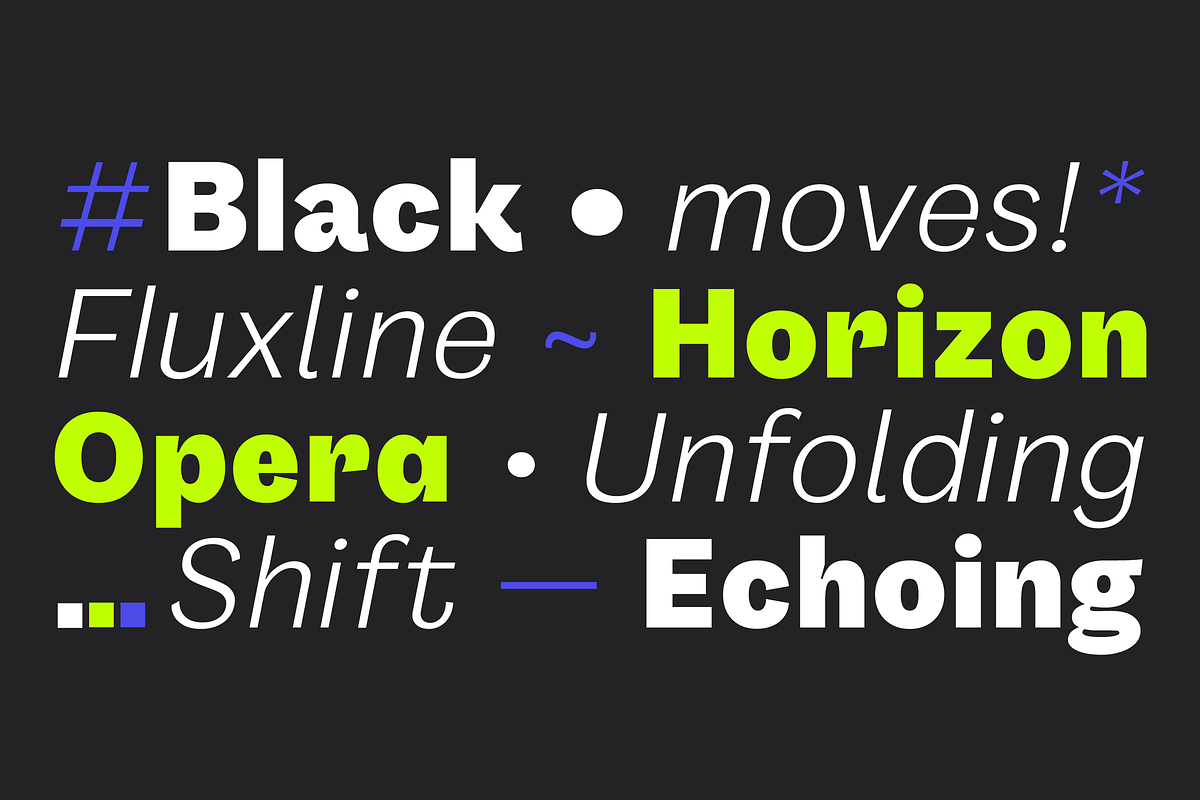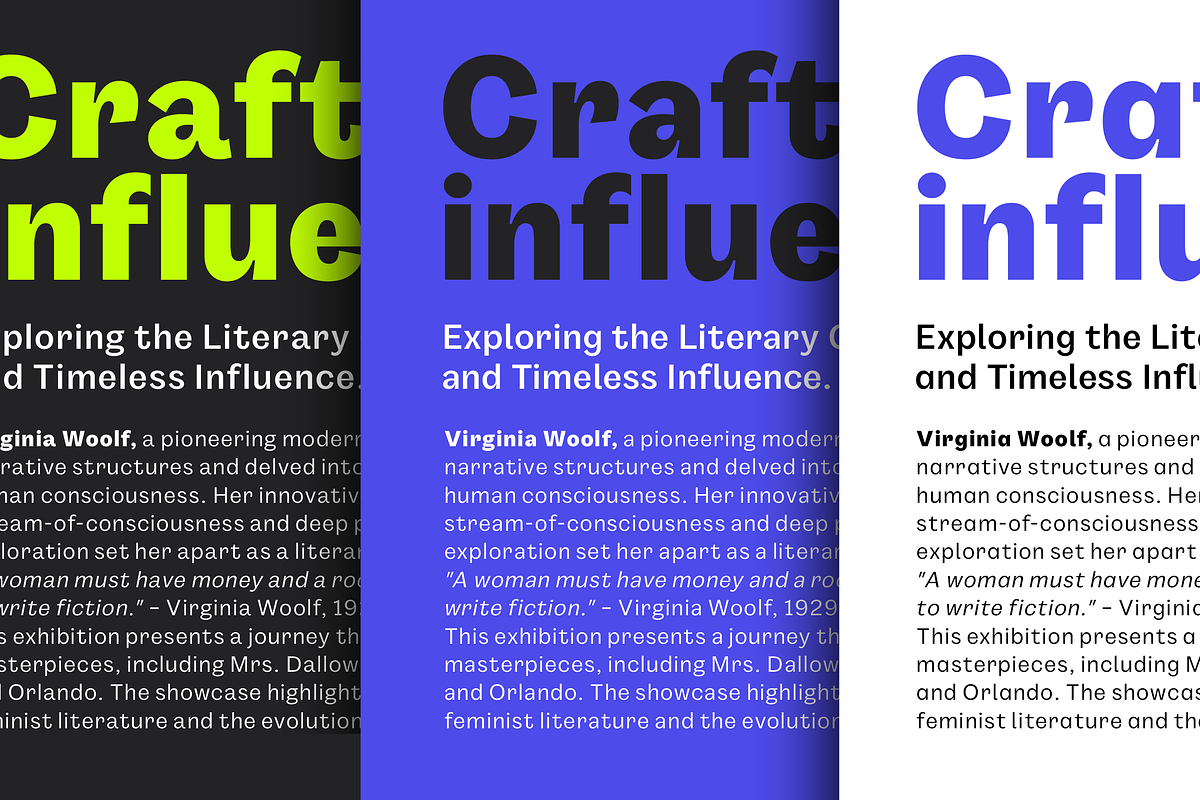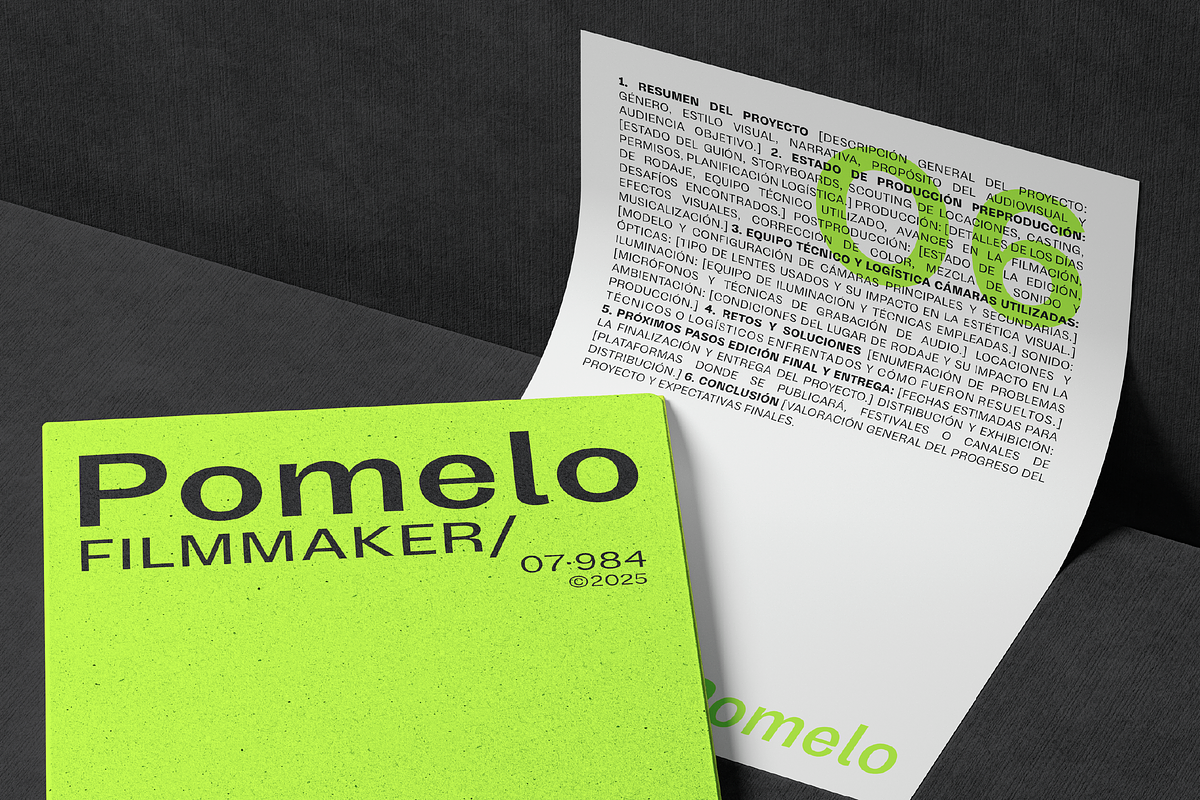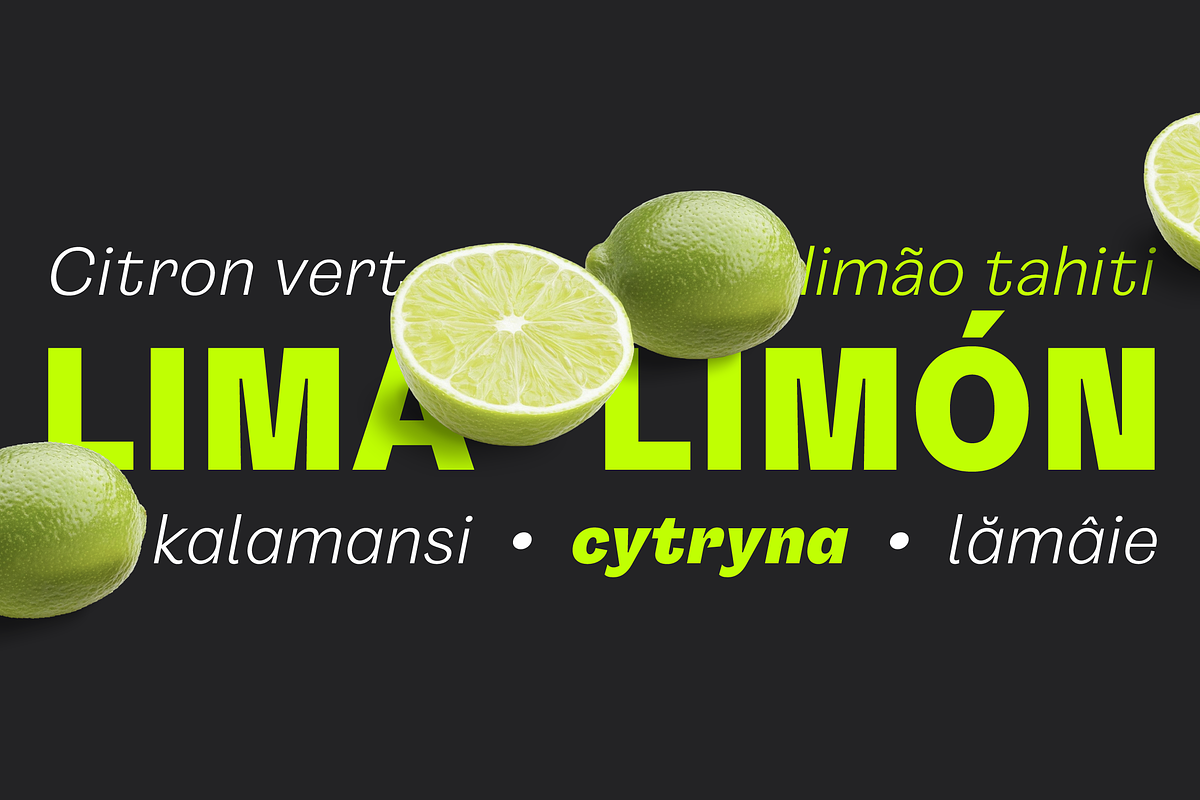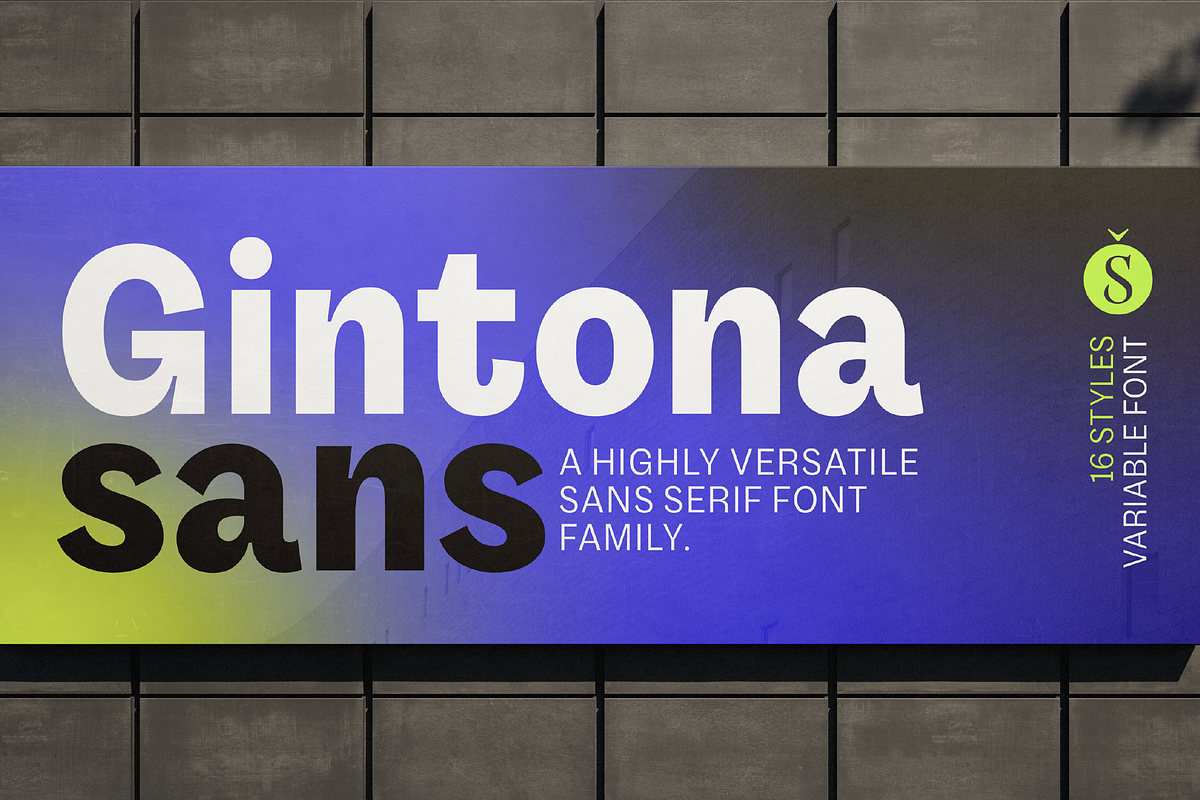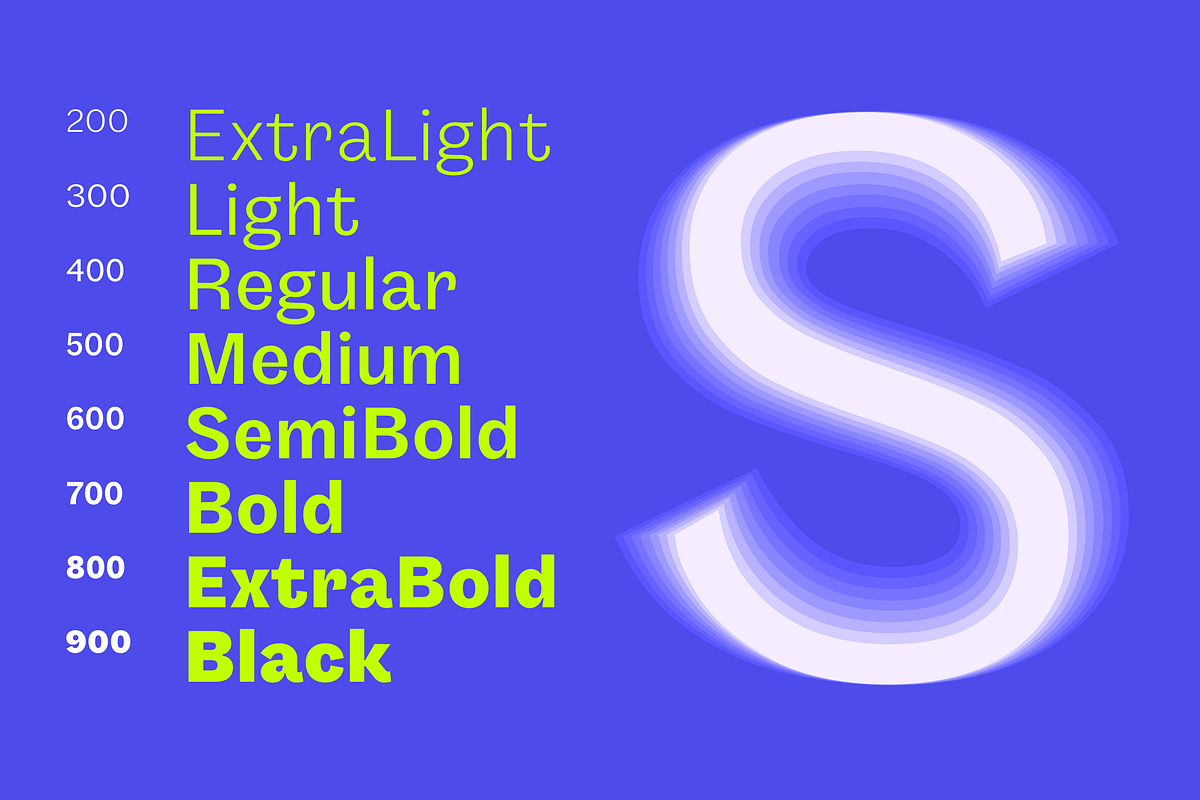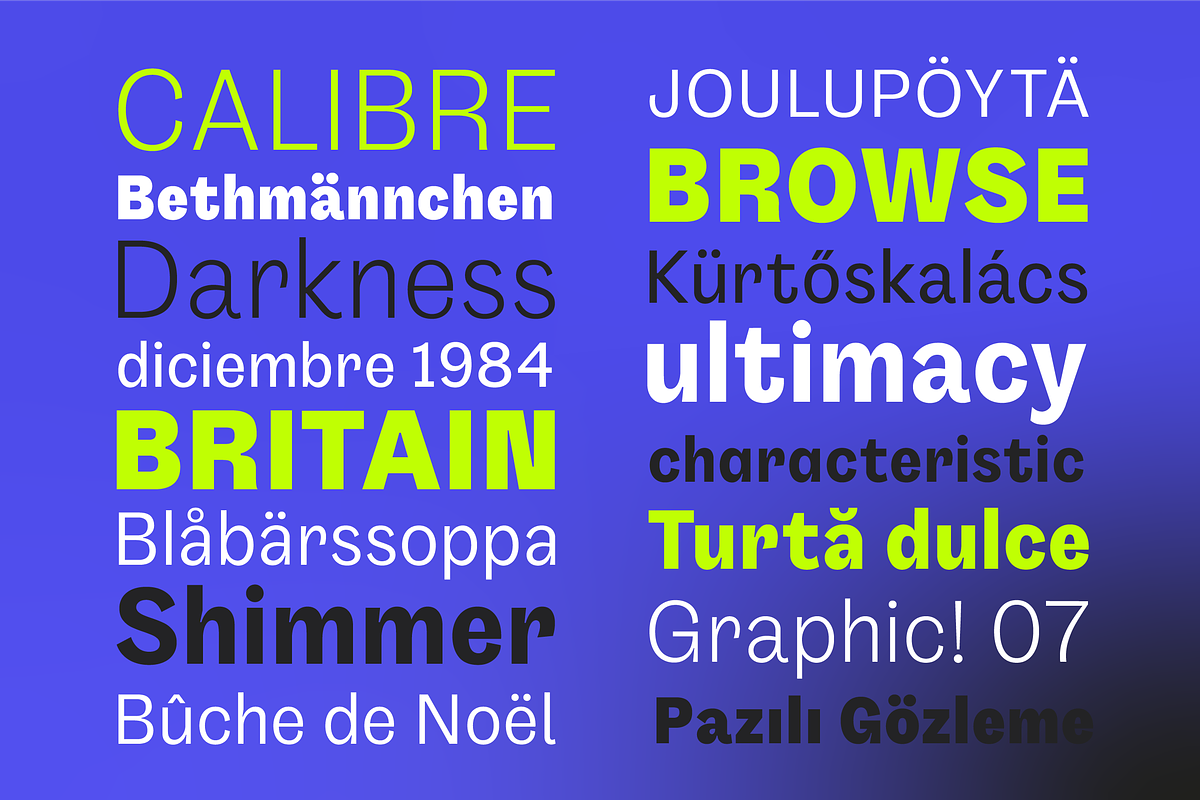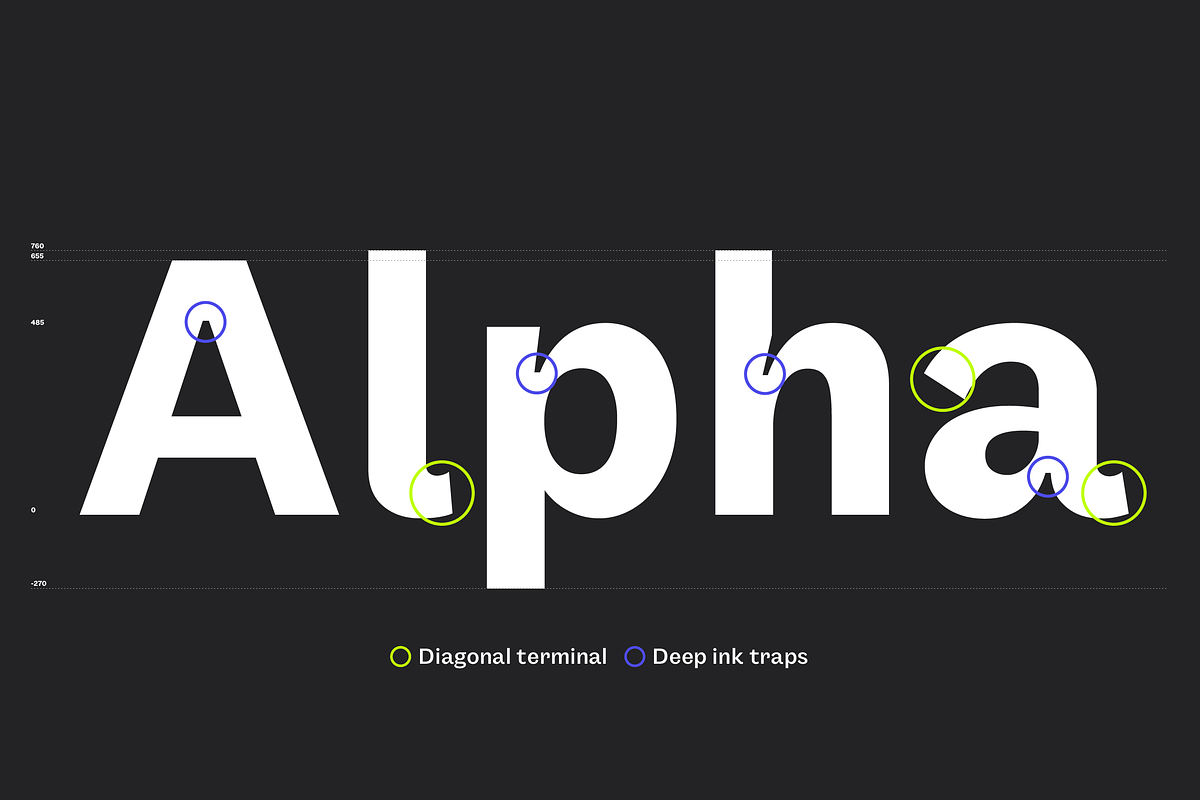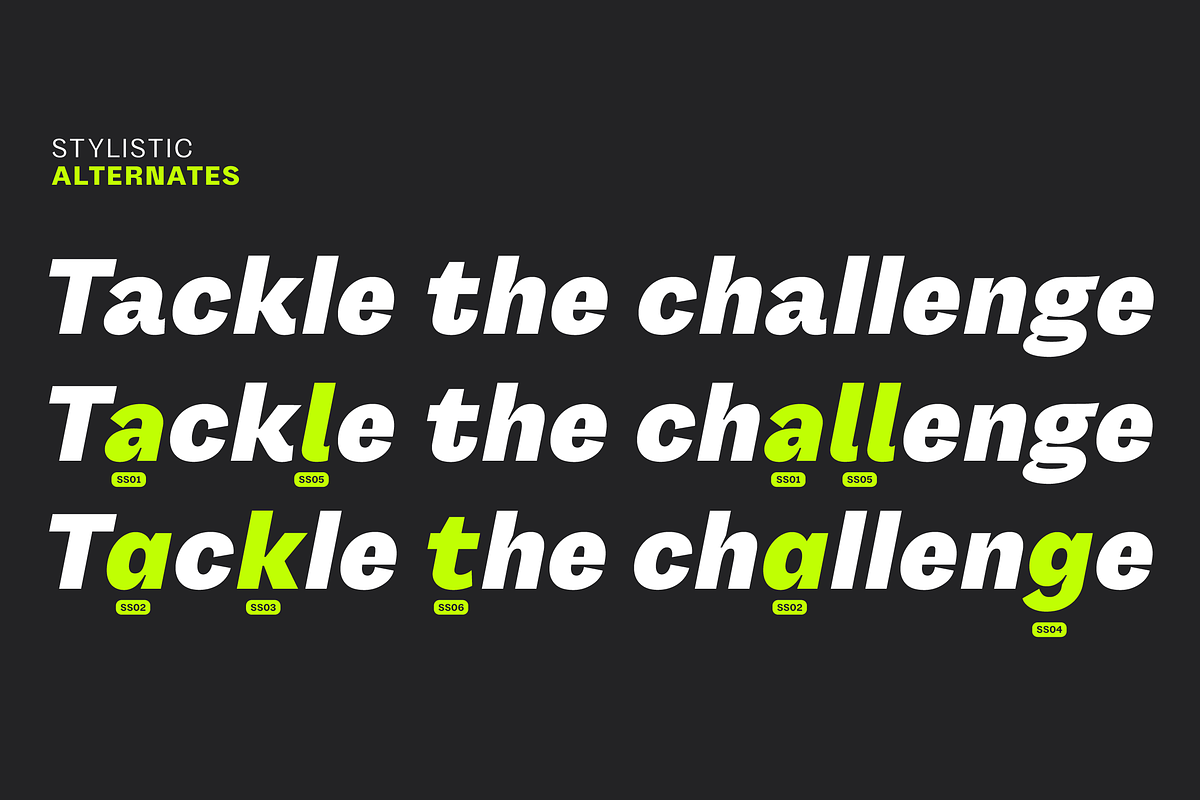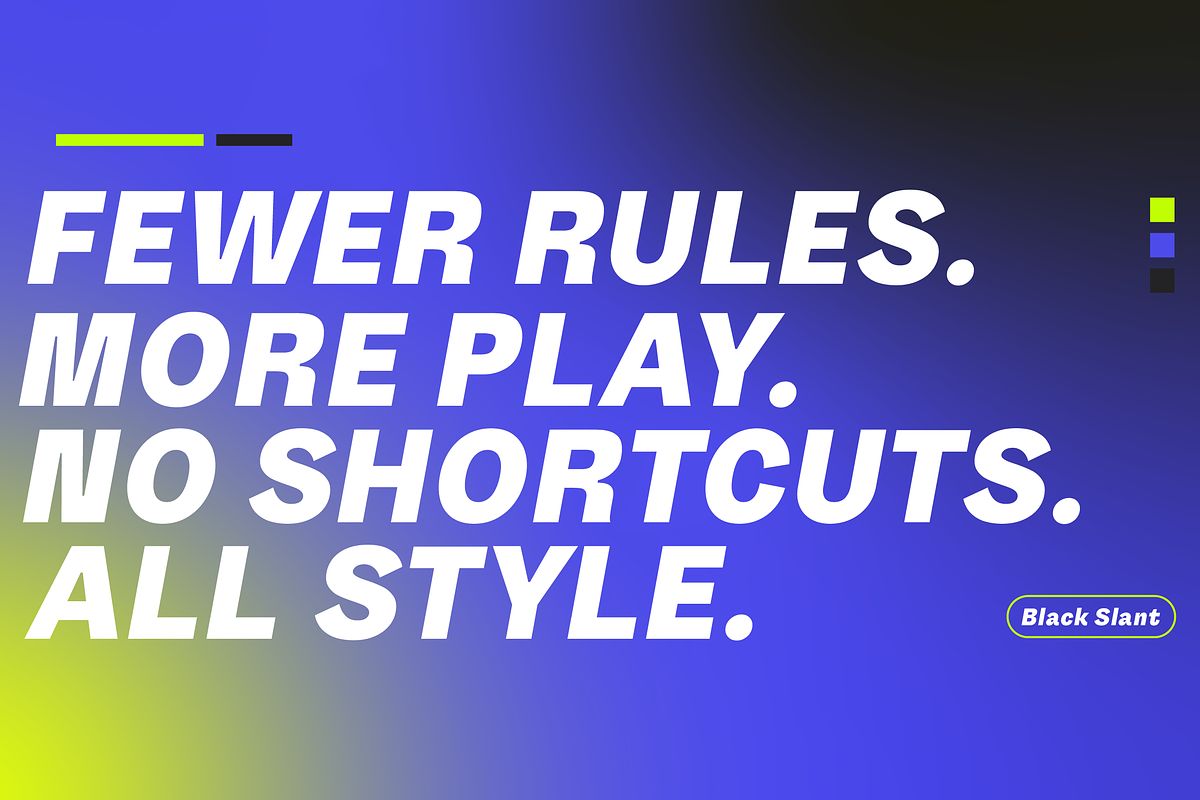
Gintona Sans
Gintona Sans is a modern and versatile sans serif that carries the distinctive spirit of the Gintona family. With 8 weights and a variable version, it adapts seamlessly to editorial projects, branding, and digital design.
Shedding the sturdy serifs of Gintona Slab, this sans version enhances fluidity while preserving a sense of energy and precision. Its balanced proportions and meticulously crafted forms create a fresh, dynamic feel, making it equally effective for immersive text settings, bold headlines, and striking graphic compositions.
Gintona Sans is the perfect choice for those seeking a contemporary typeface with character—adaptable across diverse applications without losing its unique identity.